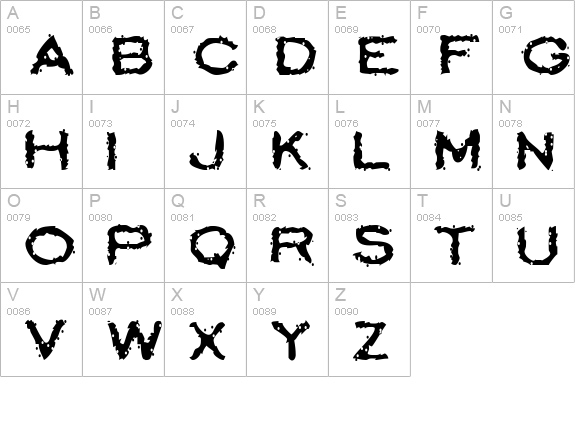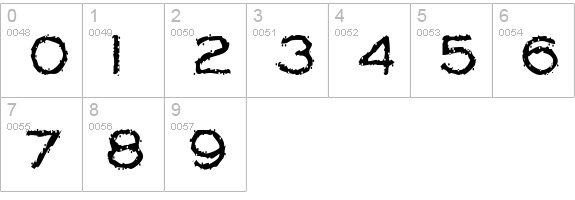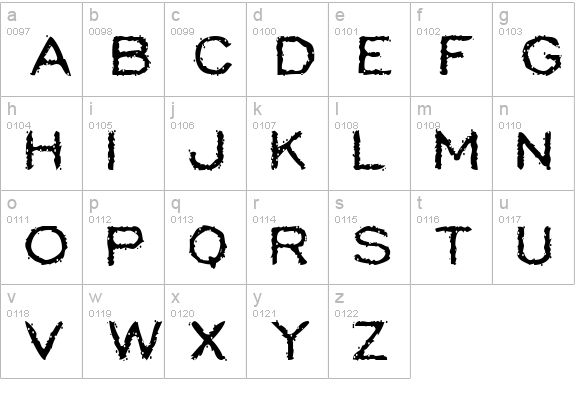
Scatterbrained Restrained Font Details
Scatterbrained Restrained font is a whimsical and playful typeface that perfectly captures the essence of a scattered mind while maintaining a sense of control and order. Its unique combination of rounded edges and restrained letterforms creates a delightful balance between chaos and structure. This font is a visual representation of the creative process, where ideas and thoughts are scattered, yet restrained within the boundaries of a well-designed typeface. It is a versatile font that can be used to add a touch of quirkiness and personality to any project, whether it's a logo, a poster, or a website design. One of the best things about Scatterbrained Restrained font is that it is freely available to download at FontsMarket.com. This means that you can easily access and use this charming typeface for your personal or commercial projects without any cost or restrictions. Its availability for free makes it a valuable asset for designers, students, and anyone looking to add a touch of whimsy to their creative endeavors. With its vibrant personality, Scatterbrained Restrained font is sure to catch the eye and leave a lasting impression. Its playful yet restrained nature makes it a perfect choice for projects that require a unique and captivating design. So why wait? Download Scatterbrained Restrained font today from FontsMarket.com and let your creativity run wild while maintaining a sense of order and control.